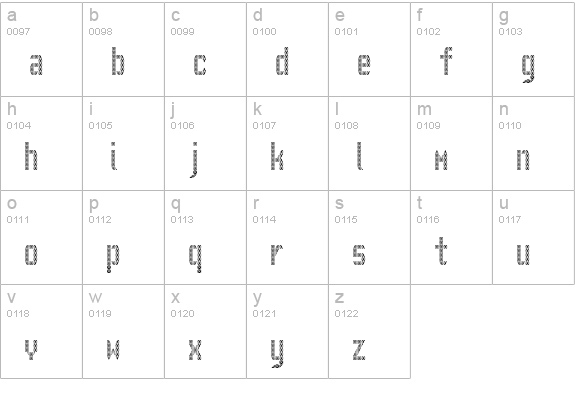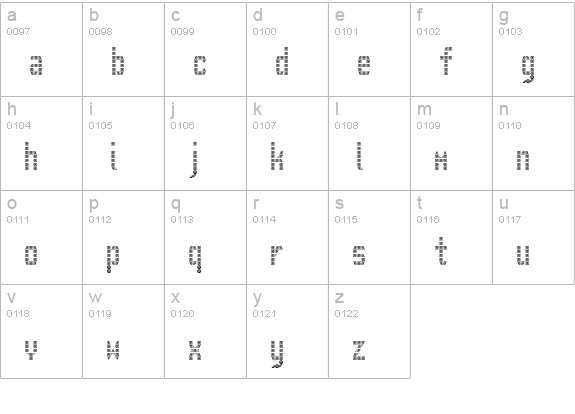
Gateway-B1 Font Details
Gateway-B1 is a modern and stylish font that exudes elegance and sophistication. Its sleek and clean lines make it perfect for a wide range of design projects, from branding to editorial design. With its versatile and timeless appeal, Gateway-B1 is sure to elevate any design it is used in. The best part? Gateway-B1 is available for free download at FontsMarket.com. This means that you can easily access this beautiful font and incorporate it into your projects without any cost. Don't miss out on the opportunity to enhance your designs with the stunning Gateway-B1 font, now conveniently available for free at FontsMarket.com.